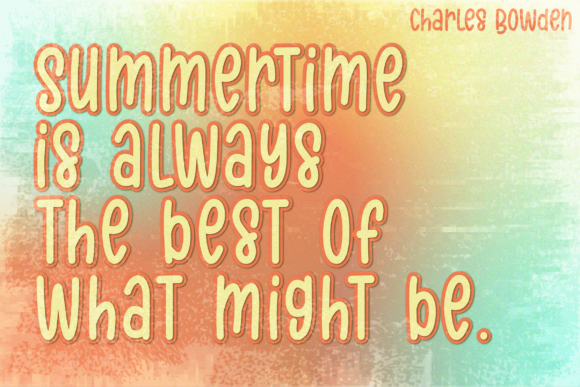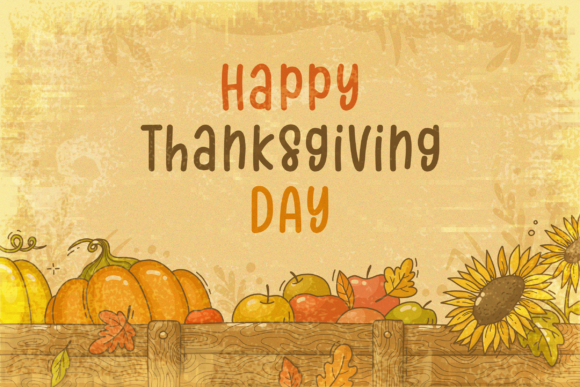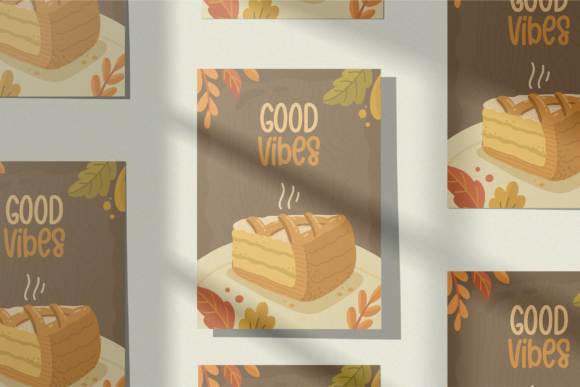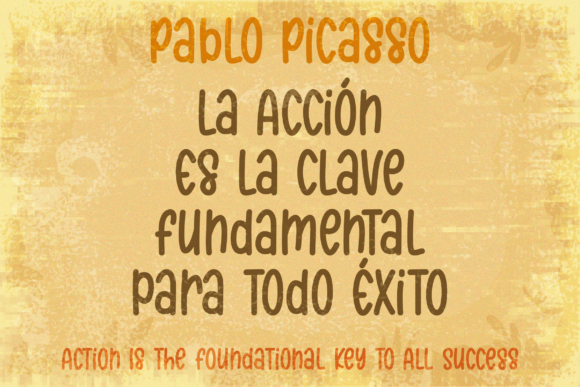
Introducing the Awesome Summer Font: A Sweet and Unique Handwritten Style
Are you looking for a font that captures the carefree and playful spirit of summer? Look no further than the Awesome Summer Font! This beautiful handwritten font is perfect for designers and crafters who want to add a touch of whimsy and charm to their projects.
A Unique and Sweet Style
The Awesome Summer Font boasts a unique and sweet style that is sure to delight. Its steady strokes are carefully crafted to create a sense of movement and fluidity, making it perfect for designs that require a playful and carefree feel. Whether you’re working on a retro-themed project, a childish design, or a girly craft, this font is sure to fit the bill.
Perfect for Retro, Childish, and Girly Themes
The Awesome Summer Font is incredibly versatile and can be used for a wide range of design projects. Its retro vibe makes it perfect for vintage-inspired designs, while its childish charm is ideal for projects aimed at kids or with a youthful theme. Additionally, its sweet and feminine style makes it a great choice for girly designs, such as fashion or beauty projects.
What Makes the Awesome Summer Font So Special?
So, what sets the Awesome Summer Font apart from other fonts? Here are just a few things that make it truly special:
- Unique and Handwritten Style: The Awesome Summer Font is a carefully crafted handwritten font that is sure to add a personal touch to your designs.
- Playful and Carefree Feel: The font’s steady strokes and fluid movement create a sense of playfulness and carefree spirit that is perfect for summer-themed designs.
- Retro, Childish, and Girly Themes: The font’s versatility makes it perfect for a wide range of design projects, from retro-themed designs to childish and girly crafts.
How to Use the Awesome Summer Font in Your Designs
Using the Awesome Summer Font in your designs is easy! Here are a few tips to get you started:
- Pair it with Other Fonts: The Awesome Summer Font pairs perfectly with other fonts, such as sans-serif fonts or bold scripts. Experiment with different combinations to find the perfect look for your design.
- Use it for Headings and Titles: The font’s playful and carefree feel makes it perfect for headings and titles. Use it to add a touch of whimsy to your design and draw attention to important text.
- Add it to Your Crafting Projects: The Awesome Summer Font is perfect for crafters who want to add a personal touch to their projects. Use it to create custom titles, labels, or embellishments for your crafts.
| Font Name | Awesome Summer Font |
| Author | Yusa Creative |